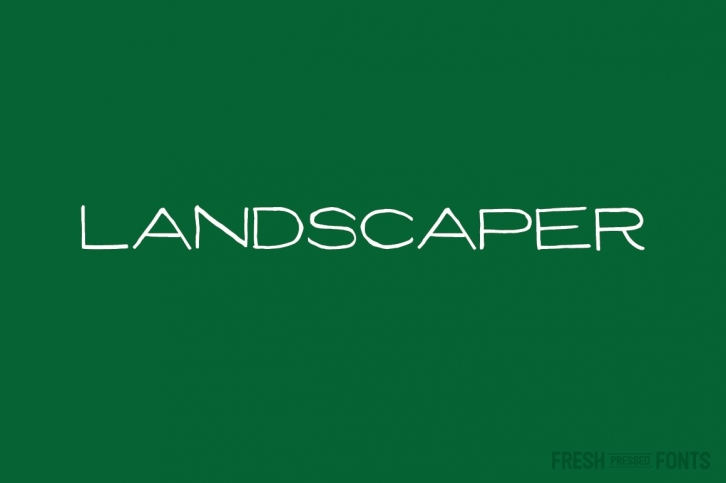
Landscaper is an all-caps display font based roughly on the accepted and common handwriting of architects. Simplified and made a bit more legible, Landscaper becomes a useful display handwriting font that can be used for many purposes.